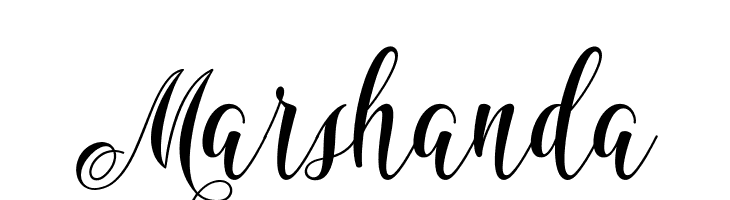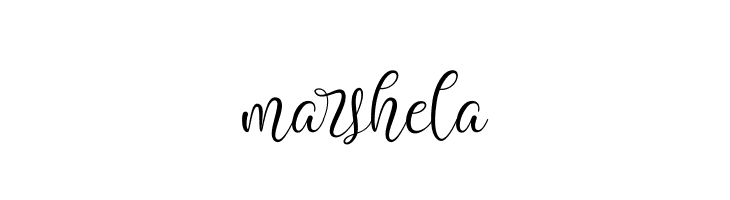
( Fonts by Niskala Huruf )
A playful, handwritten font with tall, narrow letterforms and a whimsical style.
( Fonts by Sinister Visions - Chad Savage - www.sinisterfonts.com )
A bold, distressed font with a spooky, ghostly aesthetic.
Distressed, brush-style horror display font with jagged edges.
A bold, expressive handwritten font with a playful and artistic flair.
Bold, blocky font with a shadow effect for a three-dimensional look.
A bold, distressed font with a vintage, grunge aesthetic.
( www.leodsen.com )
A bold, decorative font with a distressed, vintage texture.
An elegant script font with flowing, interconnected letters and graceful swashes.
A bold, rounded font with a modern and playful style.
A bold, slanted font with thick strokes and rounded edges, exuding energy and modernity.
A bold, distressed font with a vintage, stamp-like texture.
A bold, textured, oblique font with a vintage, stamp-like appearance.
An abstract and artistic font with a modern and minimalistic style.
A bold, modern font with geometric shapes and uniform strokes.
A bold and oblique font with a modern, dynamic style.
A modern, oblique font with elegant curves and a dynamic style.
( Fonts by Letterena Studios )
A whimsical, handwritten font with flowing, delicate strokes and a playful style.
A flowing, elegant cursive font with decorative flourishes.
( Fonts by Letterena Studios )
A playful, handwritten font with rounded edges and a casual, friendly style.
A playful, hand-drawn font with rounded characters and a whimsical style.
( Fonts by Letterena Studios )
A bold, playful handwritten font with a smooth, slanted style.
A playful, bold handwritten font with an italic slant.
A playful, handwritten font with flowing, cursive-like strokes.
A lively and expressive handwritten font with dynamic strokes and playful loops.
A lively, flowing script font with smooth, cursive strokes and playful elegance.
( Fonts by Fillo Graphic )
A bold, playful script font with a modern, energetic style.
A lively, cursive font with bold, flowing strokes and a playful elegance.